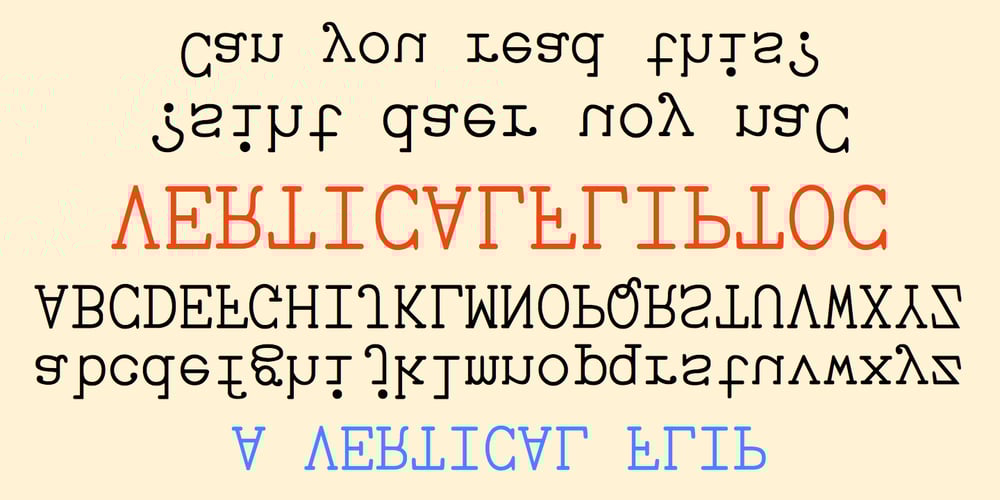
VerticalFlipTOC Font Family was designed by Robert Schenk and published by Ingrimayne Type. VerticalFlipTOC contains 1 styles and family package options. Many years ago I created two upside-down typefaces, UpsidedownJJ and UpsidedownTOC. They were based on monospaced or typewriter fonts, and were rotated 180 degrees, which is the same as a vertical flip followed by a horizontal flip. Recently I was reminded that this way of creating an upside-down typeface is not the only way to create an upside-down typeface–a simple vertical flip creates a different one. That is what this typeface is, a simple vertical flip. The unflipped typeface from which VerticalFlipTOC is derived is TiredOfCourier.